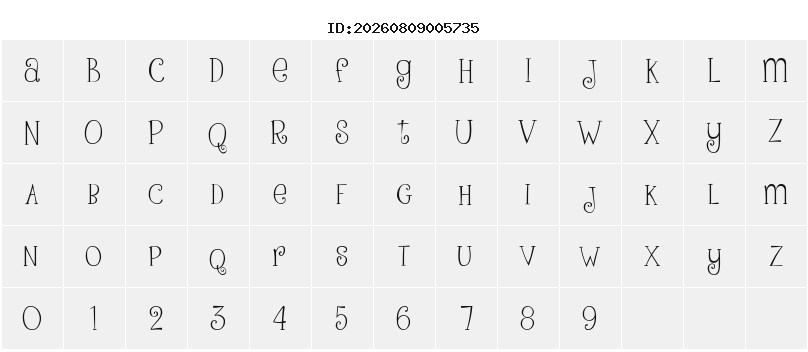
• Font Name: Pink Ladies and Peanutbutte
• Description: Pink Ladies and Peanutbutter created by Emily Spadoni Version 1.0 10-30-2014
Pink Ladies and Peanutbutte.ttf is a modern, elegant sans-serif font designed for ultimate readability and visual harmony. Perfect for branding, headlines, web design, and print materials.